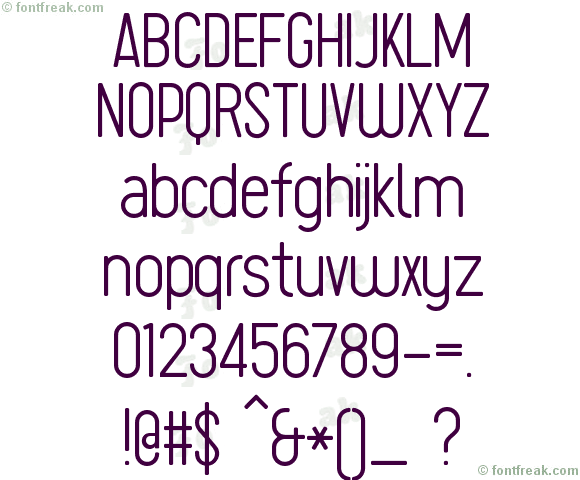
Sugo
Sugo UltraLight
About Sugo
Sugo is a captivating ultralight sans-serif font designed by the innovative Studio kmzero. Released in 2007, this font stands out for its clean lines and modern aesthetic, making it an excellent choice for a variety of design projects. Its unique stroke weight lends a minimalistic feel, while the subtle contrast between thick and thin strokes adds a touch of sophistication. The generous spacing between characters enhances readability, making Sugo an ideal choice for both digital and print applications.
This versatile font can be used effectively in numerous contexts. For instance, it is perfect for wedding invitations, where its elegant simplicity can convey a sense of charm and joy. Additionally, Sugo shines on movie posters, providing a contemporary look that can attract attention without overpowering the visual elements. Restaurant menus benefit from Sugo's clarity, ensuring that patrons can easily read offerings while enjoying a stylish presentation. Content creators will also find Sugo a valuable asset for social media graphics, as it captures the essence of modern branding with ease.
What truly sets Sugo apart is its harmonious blend of minimalism and functionality. It embodies a contemporary aesthetic that resonates with modern design sensibilities, allowing it to fit seamlessly into a wide range of applications. For those looking to elevate their projects, the Sugo font free download offers an opportunity to incorporate a distinctive typeface that enhances visual storytelling.